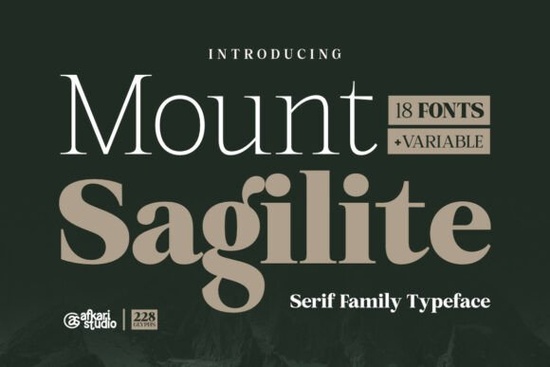
Mount Sagilite Font is a versatile and elegant serif typeface that brings a touch of sophistication to any design project. Whether you're working on branding, editorial layouts, or high-end marketing materials, this font offers a refined look that stands out. With 18 styles and a variable font option, it’s easy to find the perfect fit for your creative needs. If you're looking for a modern yet classic font, Mount Sagilite is an excellent choice.
Designed with both readability and visual appeal in mind, Mount Sagilite combines traditional serif elements with contemporary details. This makes it ideal for a wide range of applications, from luxury branding to social media graphics. The font’s balanced structure ensures it works well in both digital and print formats, giving your designs a polished and professional finish.
What Makes Mount Sagilite Stand Out?
One of the key features of Mount Sagilite is its versatility. It includes multiple weights and styles, allowing designers to create dynamic and visually engaging compositions. The variable font option adds even more flexibility, letting you adjust the weight and width seamlessly without needing separate files. This can save time and streamline your workflow, especially when working on large projects.
The font’s design is inspired by luxury editorial and contemporary branding trends. This means it’s not just beautiful it’s also relevant. Whether you’re designing for fashion magazines, wedding stationery, or premium product packaging, Mount Sagilite delivers a timeless aesthetic that feels both distinguished and modern.
Best Uses for Mount Sagilite Font
Mount Sagilite is suitable for a variety of design tasks. For example, it works well as a headline font for website headers or business presentations. Its elegant curves and sharp serifs make it perfect for logos, especially those targeting high-end markets. You can also use it in book covers, packaging design, or cosmetic branding to add a sense of luxury and refinement.
For print-on-demand sellers, this font can elevate the look of your products. It’s also a great option for small businesses looking to establish a strong brand identity. The font’s clean lines and sophisticated appearance help convey professionalism and quality, which can make a big difference in how your brand is perceived.
How to Use Mount Sagilite Effectively
To get the most out of Mount Sagilite, consider using it in combination with simpler fonts for contrast. For example, pair it with a sans-serif font for body text to keep the design balanced and easy to read. This approach can help highlight the elegance of the serif while maintaining clarity.
Finally, always consider the tone and message of your design. Mount Sagilite is best suited for projects that aim to convey sophistication, class, or a sense of timeless beauty. Using it inappropriately can sometimes dilute its impact, so choose your applications carefully.
By understanding the strengths of Mount Sagilite Font and using it thoughtfully, you can enhance your designs and create a more compelling visual experience. Whether you're a designer, crafter, or small business owner, this font offers a powerful tool for achieving professional and stylish results.